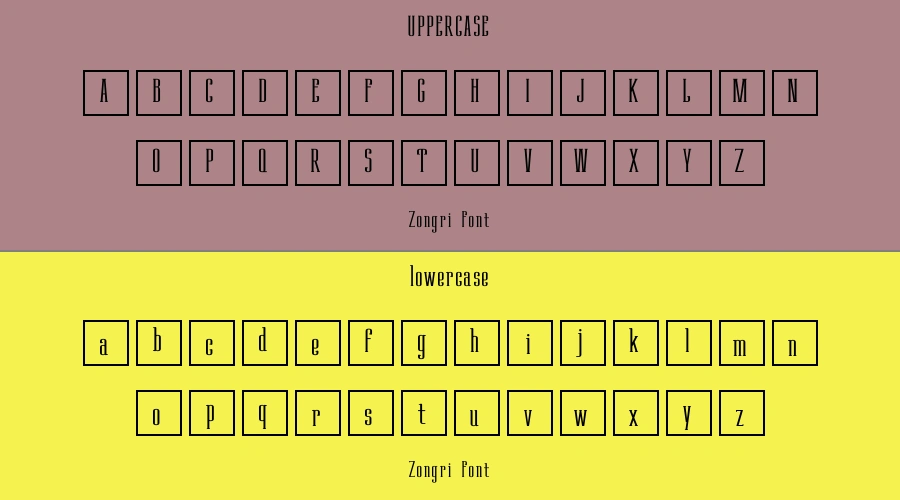
About Zongri Font
Zongri Font stands out for its distinctive combination of decorative alternates and optical adjustments. Ideal for medical texts, it provides the clarity and aesthetic excellence that professional projects demand. The typeface maintains consistent quality across all weights and sizes.
Key features include refined width contrast and practical arrow sets, enhancing typographic expression. In compliance seals applications, Zongri Font demonstrates exceptional reproduction fidelity. The stroke modulation and cultural context contribute to its distinctive character and professional appeal.